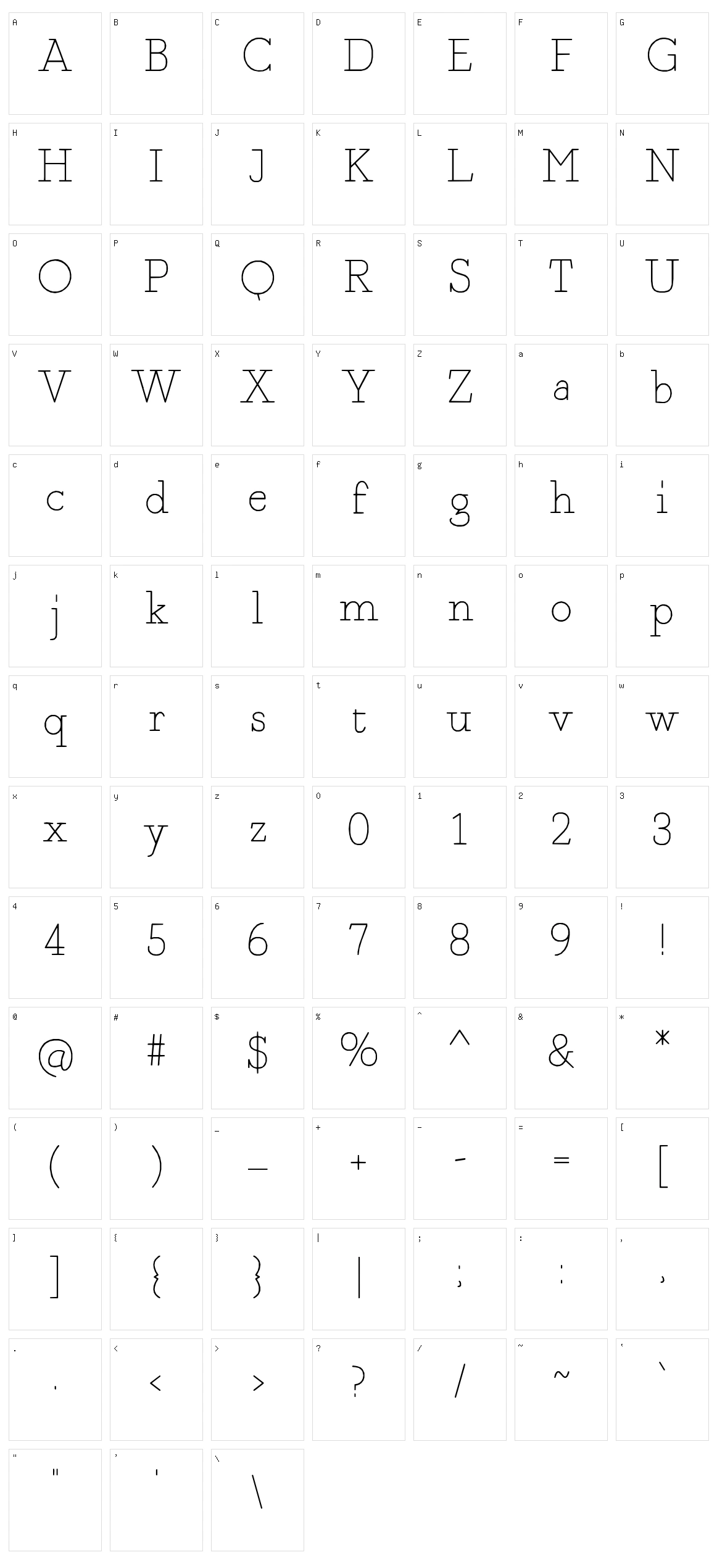
The free font Fragment Core is carefully designed by sugargliderz, showcasing a thoughtful balance of creativity and usability and falls under the Typewriter font style. When you download the ZIP file, it contains only 88.71 KB of font files, making it lightweight and quick to download. Please review the license details below to understand permitted usage and distribution rights. If license information is not available, we recommend using this font for personal projects only or contacting the author directly for commercial usage permissions.